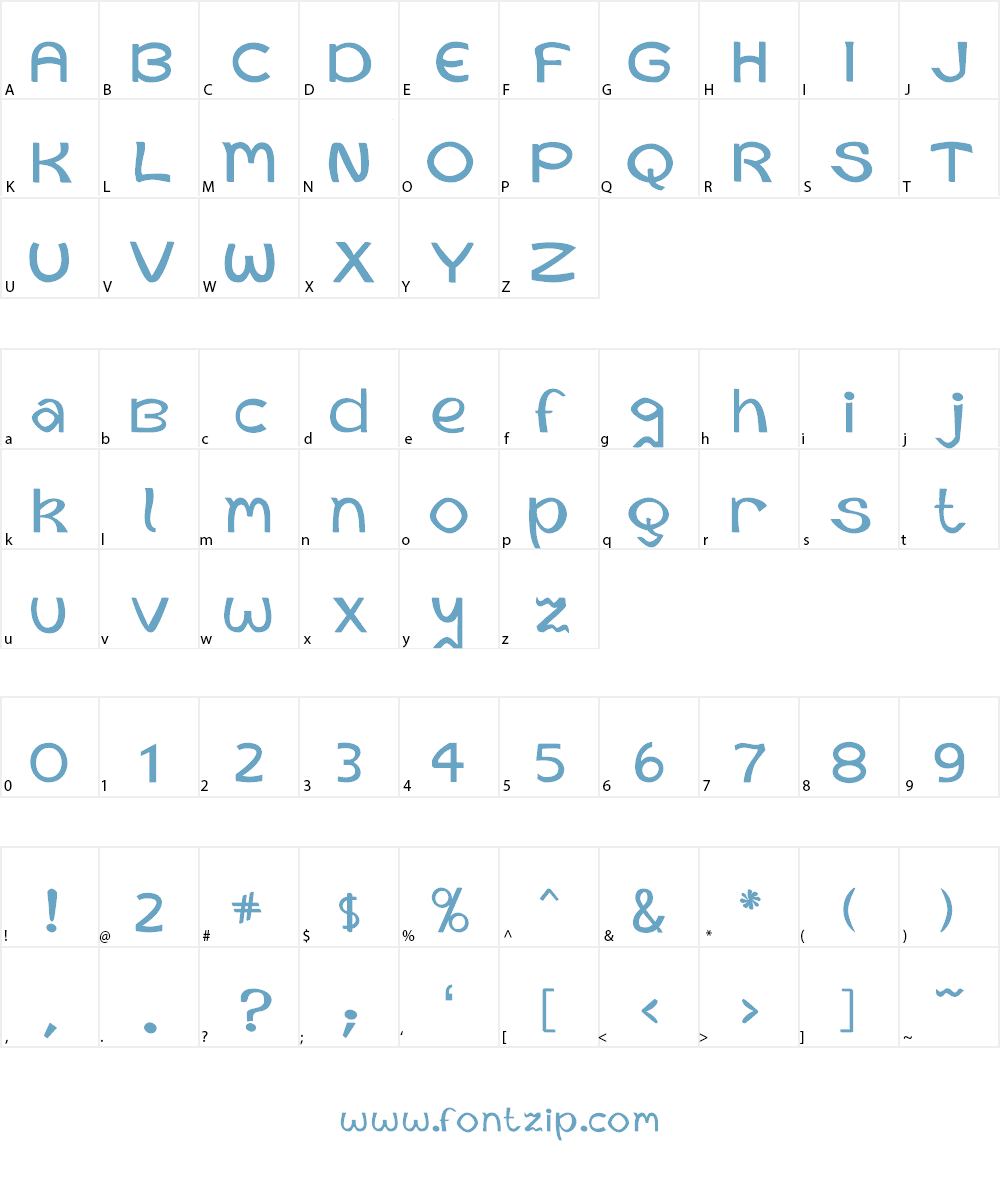
I designed this font for my son's art class. He needed to do a special project or he would fail, and since he hadn't done so hot in his other classes, he'd have to do summer school. And that would mean we wouldn't be able to make our annual trip to Vegas. Which would be cruel, since he has spent all his spare time working on a method to beat the odds at roulette.
So what could I do? The kid hates art- because of me, his failed artist father, probably. He wants to be an engineer or an astronaut or a truck driver. Something non-creative.
I wanted to do something that'd make him proud of me, but at the same time net him no better or no worse than a "C" or "C minus" for the course. So I had to make this font look like the work of a kid who hates art because of Oedipal conflicts with his father. Like something he did all by himself on the night before the deadline, with a joint smoldering in the ashtray.
It was tricky, especially because I sometimes drink with his art teacher, a frustrated neo-expressionist painter with a chip on his shoulder as big as a buffalo (a buffalo chip, i mean). He makes his own brandy out of canned apricots and dried breadcrusts, a recipe he learned in prison i think. It sure helps get us through these long Colorado winter nights. This guy knows my style pretty well so I had to be hyper aware of not drawing my letters too correctly. So I sketched the roughs left handed, with a joint smoldering in the ashtray.I wouldn't want to endanger my connection with my boy's teacher; it's hard enough being a father, it'd be impossible without drinking buddies.
So i feel kind of bad about this deception, but some day the truth will come out and we'll all laugh about it. Hopefully.
The bright side right now is that my son has agreed that since i did this for him he will wait a year before getting a tattoo. Look out Vegas, here we come!